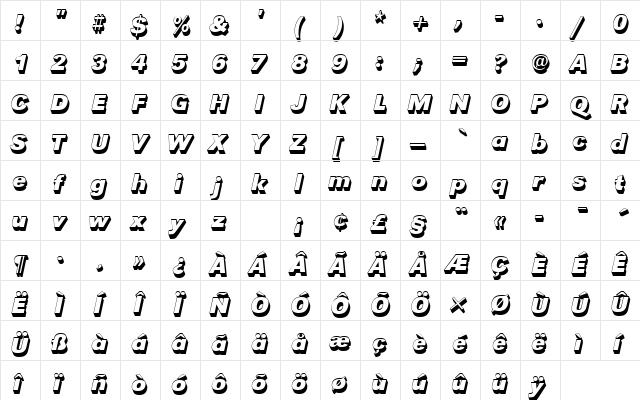
URWGroteskTBolItaSh1 Regular
Design Context for URWGroteskTBolItaSh1 Typeface
URWGroteskTBolItaSh1 has the quiet confidence of well-executed sans-serif typography: versatile, unobtrusive, and dependable at any size.
Font Pairing: Works well alongside a characterful serif or display font that can carry the expressive load while URWGroteskTBolItaSh1 handles the functional copy.
Pro Tip: Pair URWGroteskTBolItaSh1 with a display or serif font for headlines — its neutral character makes it an excellent supporting player in complex typographic systems.